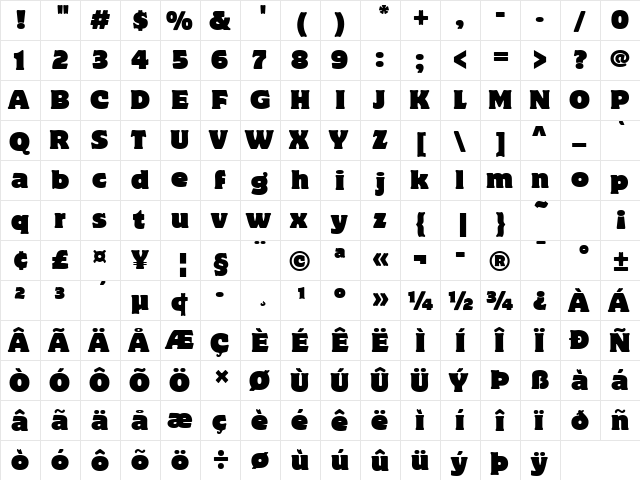
Motter Corpus ITC TT Regular
Design Context for Motter Corpus ITC TT Typeface
Motter Corpus ITC TT is a composed and adaptable typeface that performs quietly and consistently across a wide range of design contexts.